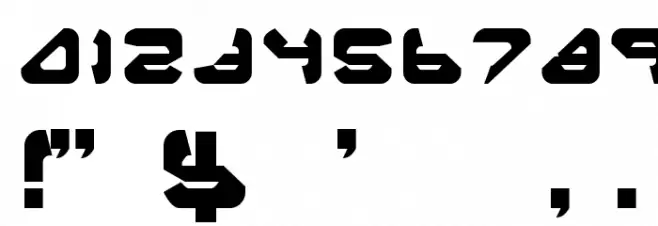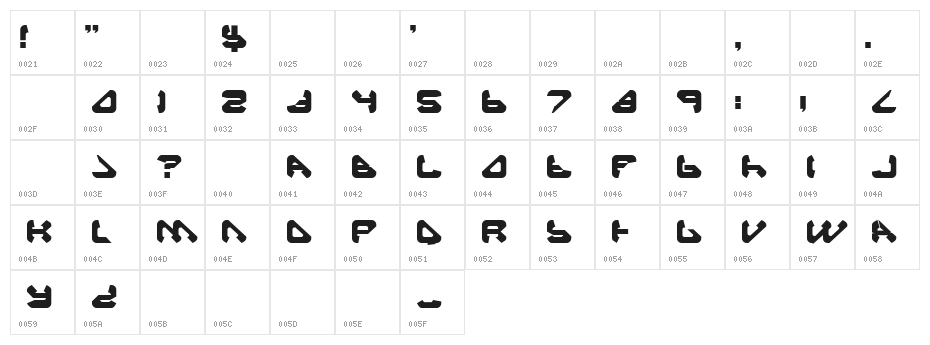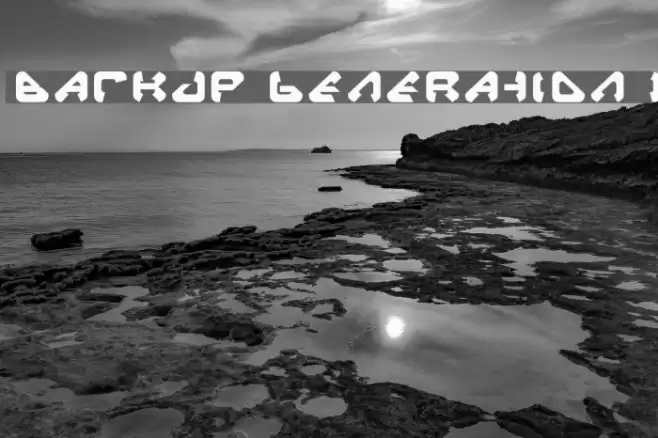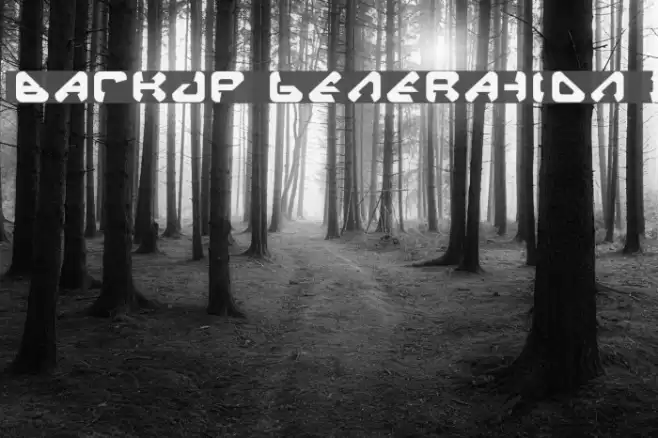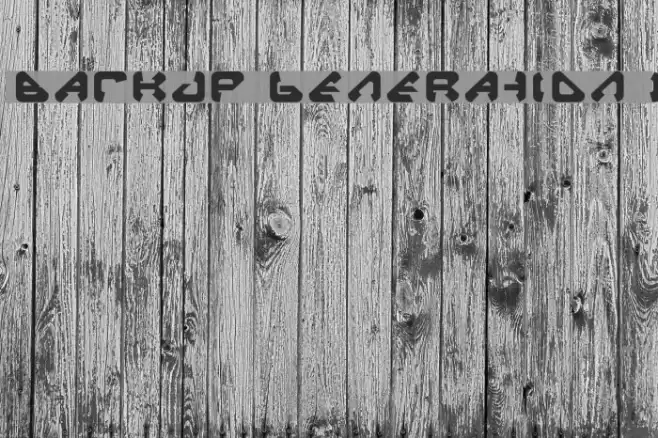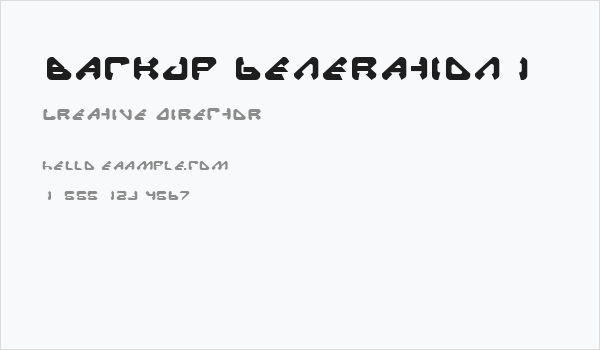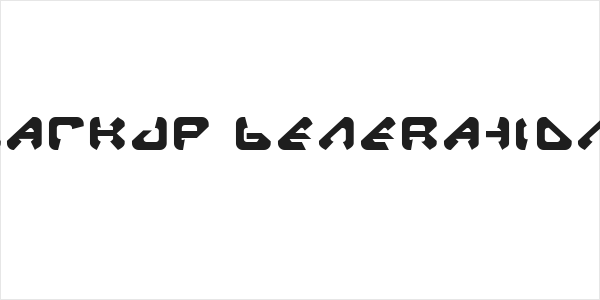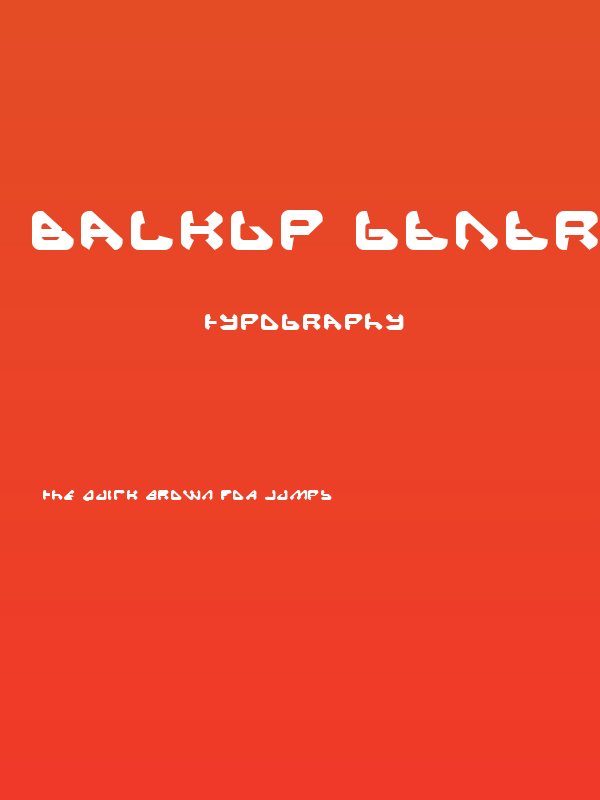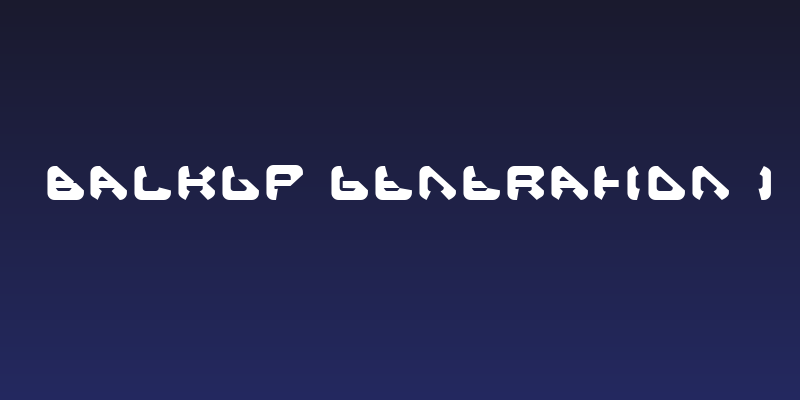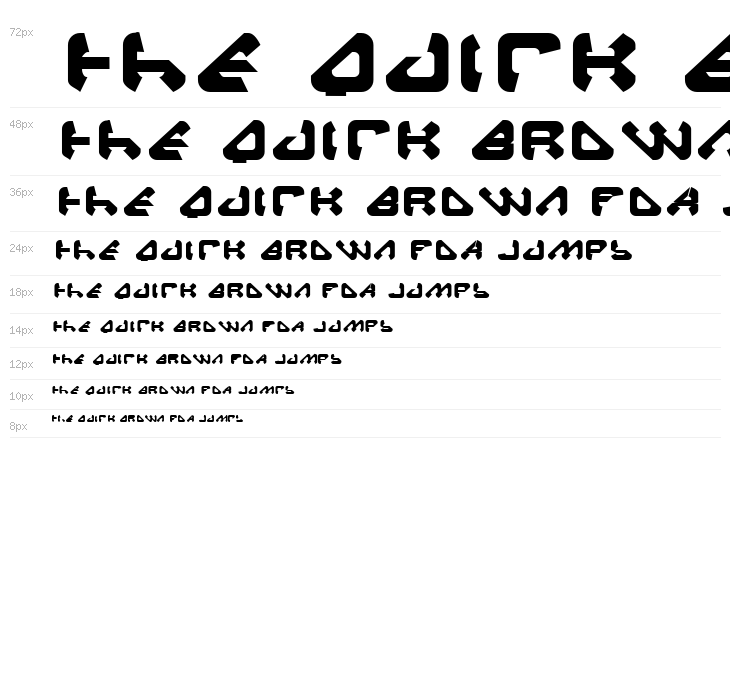
Backup Generation 1 Font
This font features a bold and futuristic design with angular, geometric shapes that give it a distinct, modern appearance. The characters are constructed with thick strokes and sharp edges, creating a sense of strength and stability. The uppercase and lowercase letters maintain a consistent style, with unique cutouts and angles that add visual interest. The numerals and special characters follow the same design principles, ensuring uniformity across the typeface. This font is highly legible and makes a strong visual impact, suitable for projects that require a bold statement.
Proposed ProjectsIdeal for sci-fi themed designs, technology branding, video game titles, and futuristic posters.